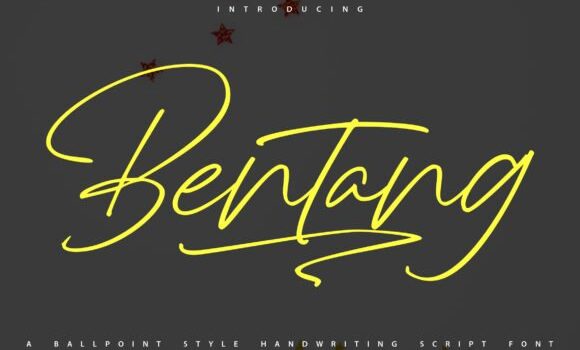
bentang
Bentang Font – Free Download Introduction to Bentang Font Bentang is a delightful and flexible handwritten font. 📸 Preview Gallery 6 images 📌 Product Name Bentang Font 👤 Author Vunira 📂 Category Explore ⬇️ Download Bentang Font FREE Free Download